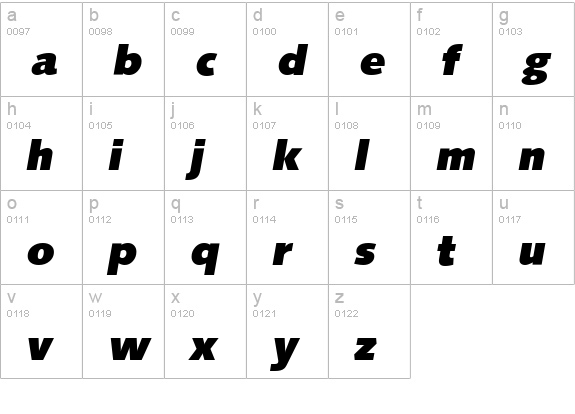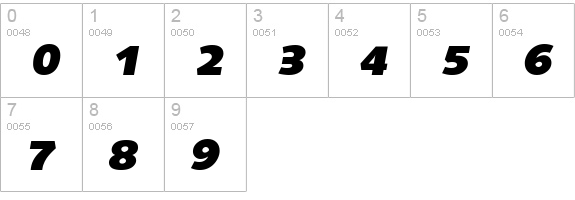
SaxonySerial-Heavy-Italic is a heavy, high-impact, italic variant in the SaxonySerial typeface family \xE2\x80\x94 well suited to high-impact headlines, posters, and display advertising.
SaxonySerial-Heavy-Italic font is a bold and stylish typeface that exudes a sense of elegance and sophistication. The strong, slanted italics give a sense of movement and dynamism to any text, making it perfect for adding a touch of drama to your designs. This font is ideal for headlines, titles, and any other text that needs to make a bold statement. The best part about SaxonySerial-Heavy-Italic font is that it is completely free to download at FontsMarket.com. Whether you're a designer looking to add a unique flair to your projects or just someone who appreciates beautiful typography, this font is a must-have in your collection. Don't miss out on the opportunity to elevate your designs with this stunning and versatile typeface. Download SaxonySerial-Heavy-Italic font today and let your creativity shine!